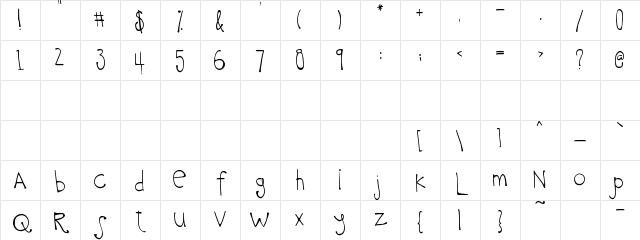
2peas job interview Regular Free Font
2peas job interview Regular
Foundry: Two Peas a Bucket
Designer: Amy Grendell
Design Context for 2peas job interview
2peas job interview is a composed and adaptable typeface that performs quietly and consistently across a wide range of design contexts.
Pro Tip: Use 2peas job interview in both headline and body roles to test its range before committing to a single application.